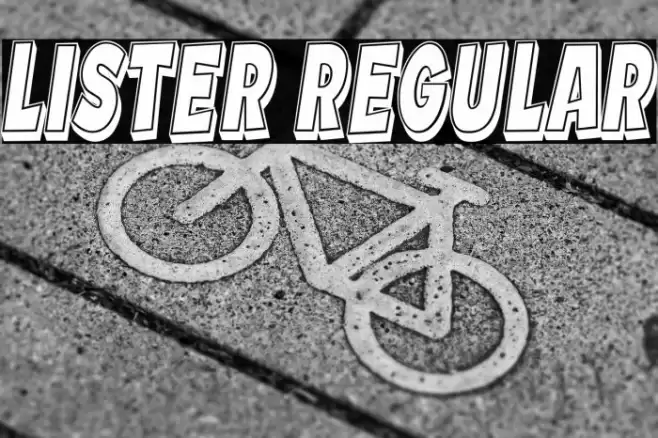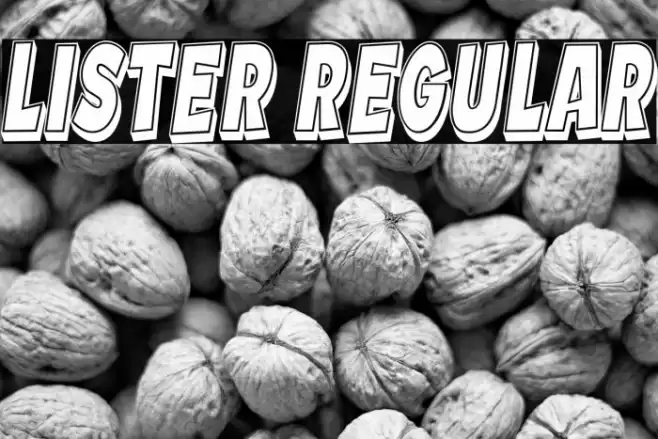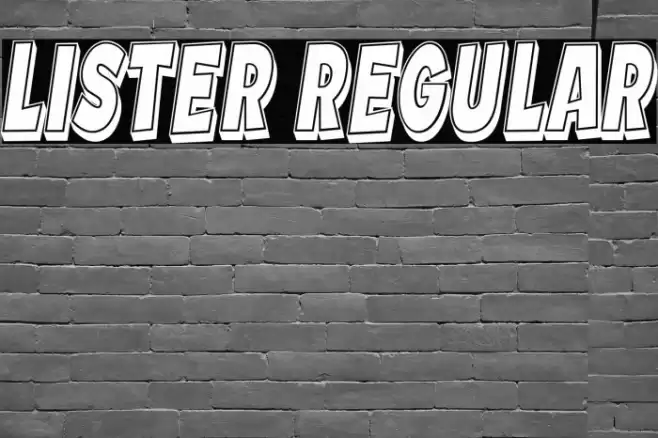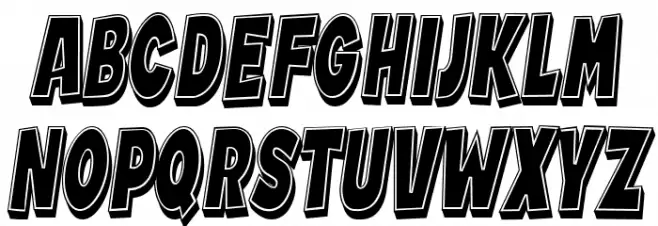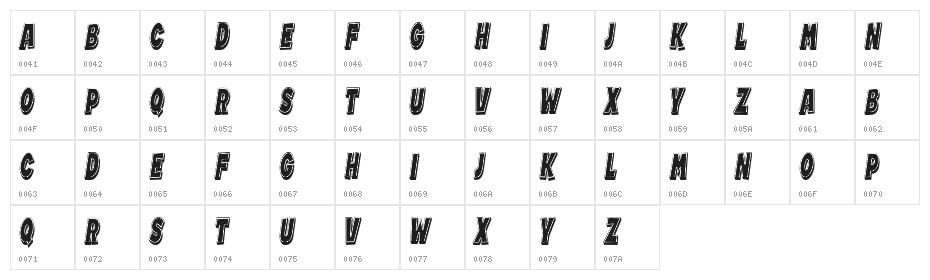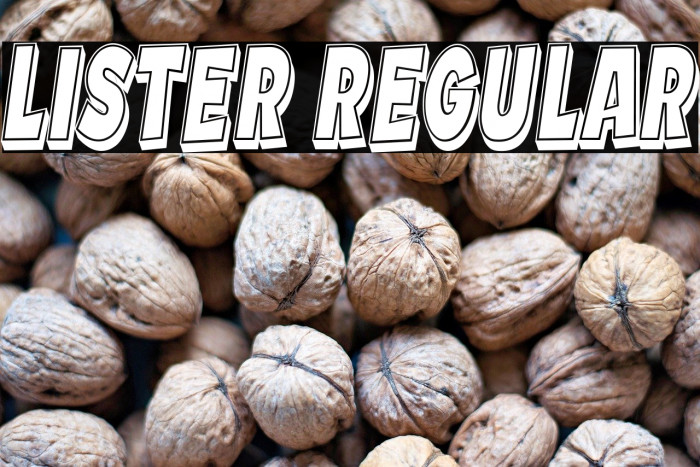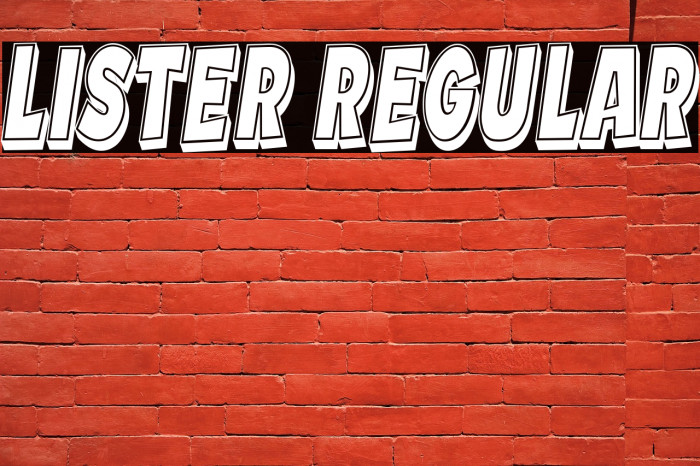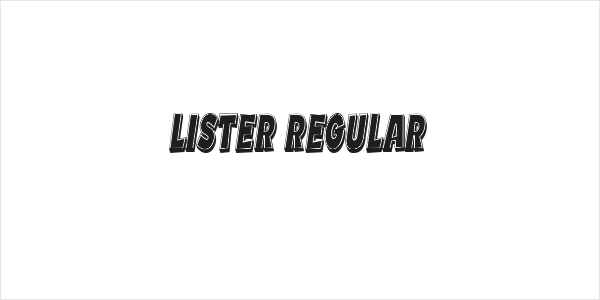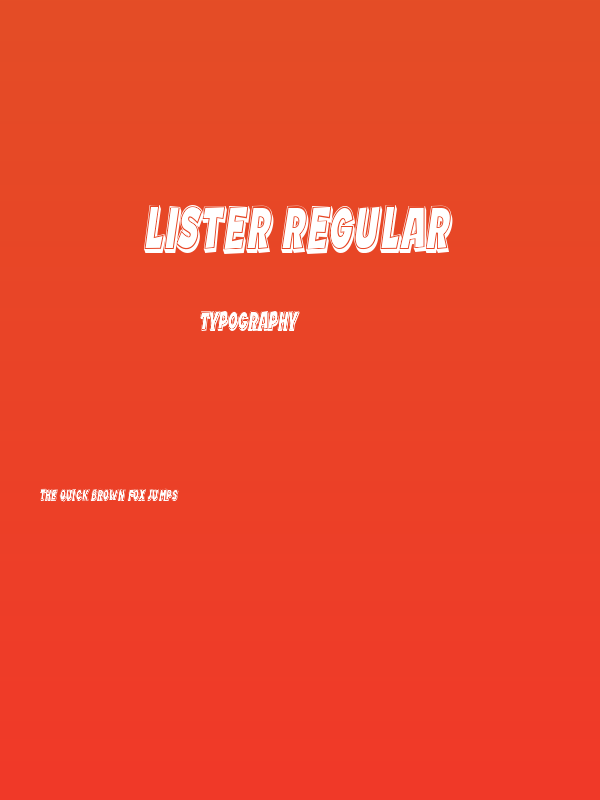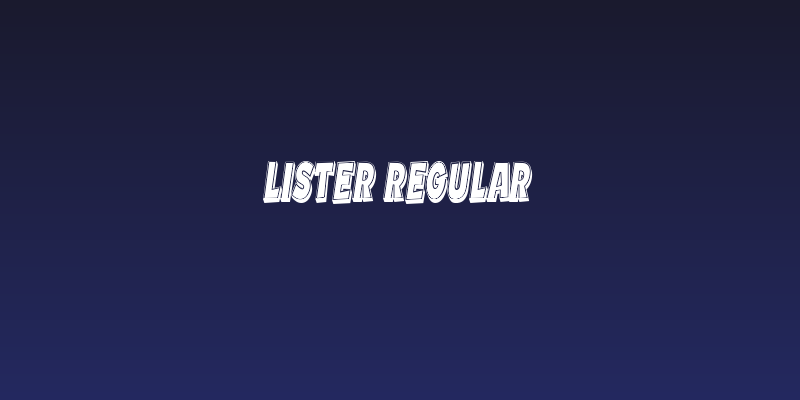
Lister Regular Font
Lister Regular Description
This font features bold, uppercase letters with a strong, impactful presence. Each character is outlined with a thick black shadow, giving it a three-dimensional effect that makes the text stand out. The letters are slightly slanted, adding a dynamic and energetic feel. The overall design is clean yet striking, making it suitable for attention-grabbing headlines or titles. The consistent stroke width across characters ensures readability while maintaining a bold aesthetic.
Bold, outlined uppercase font with a dynamic, three-dimensional effect from Comic fonts.
- Proposed Projects: Ideal for posters, banners, and any design requiring a bold, eye-catching headline.